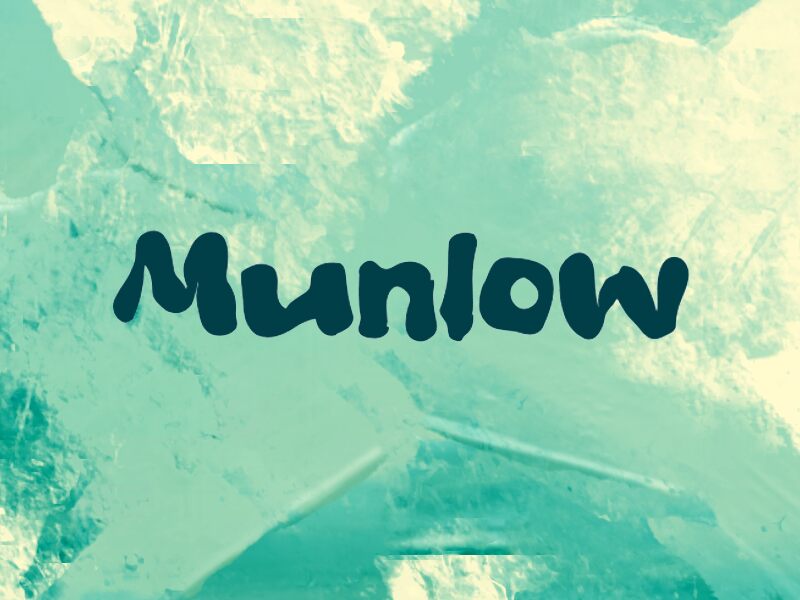
Munlow
Munlow font by wep is a free cartoon display typeface that looks like it’s been painted in thick, inky brushstrokes. Each letter feels soft and blobby, with irregular curves that wobble just enough to feel hand-drawn and mischievous. The heavy, filled-in shapes give words a bold splash of black, so short phrases instantly pop like a doodle on a sticker or a comic panel.
Using Munlow, this free font shines on kids’ book covers, YouTube thumbnails, classroom posters, party invitations, snack packaging, and playful logos. Its chunky forms hold up well at large sizes, where the quirky rhythm between letters really comes alive. For balance, pair Munlow with a clean sans serif for smaller text so the wild, inky letters stay center stage.